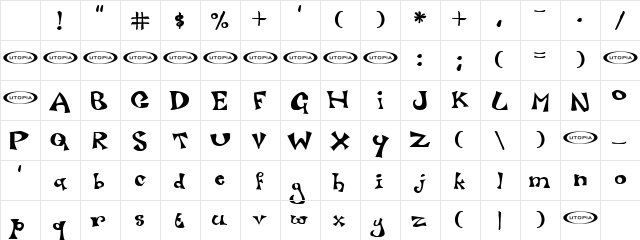
Luxo Regular
Design Context for Luxo
Luxo is a composed and adaptable typeface that performs quietly and consistently across a wide range of design contexts.